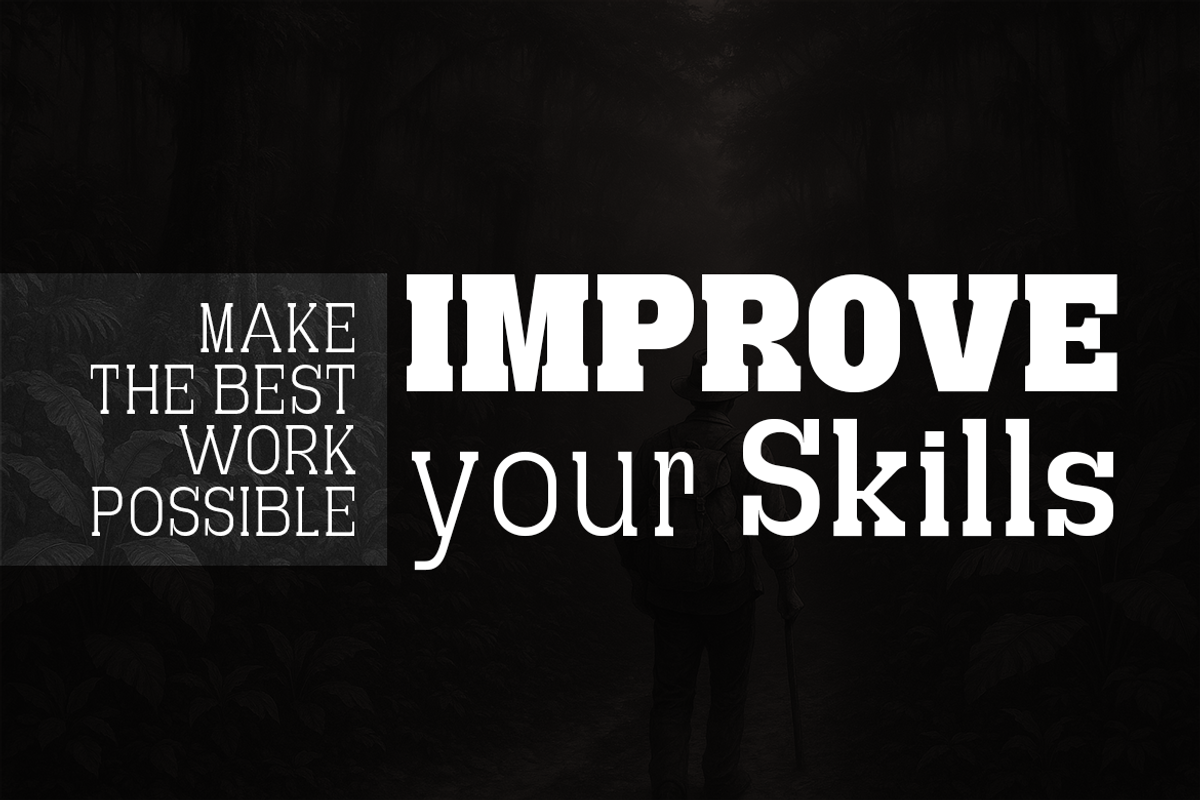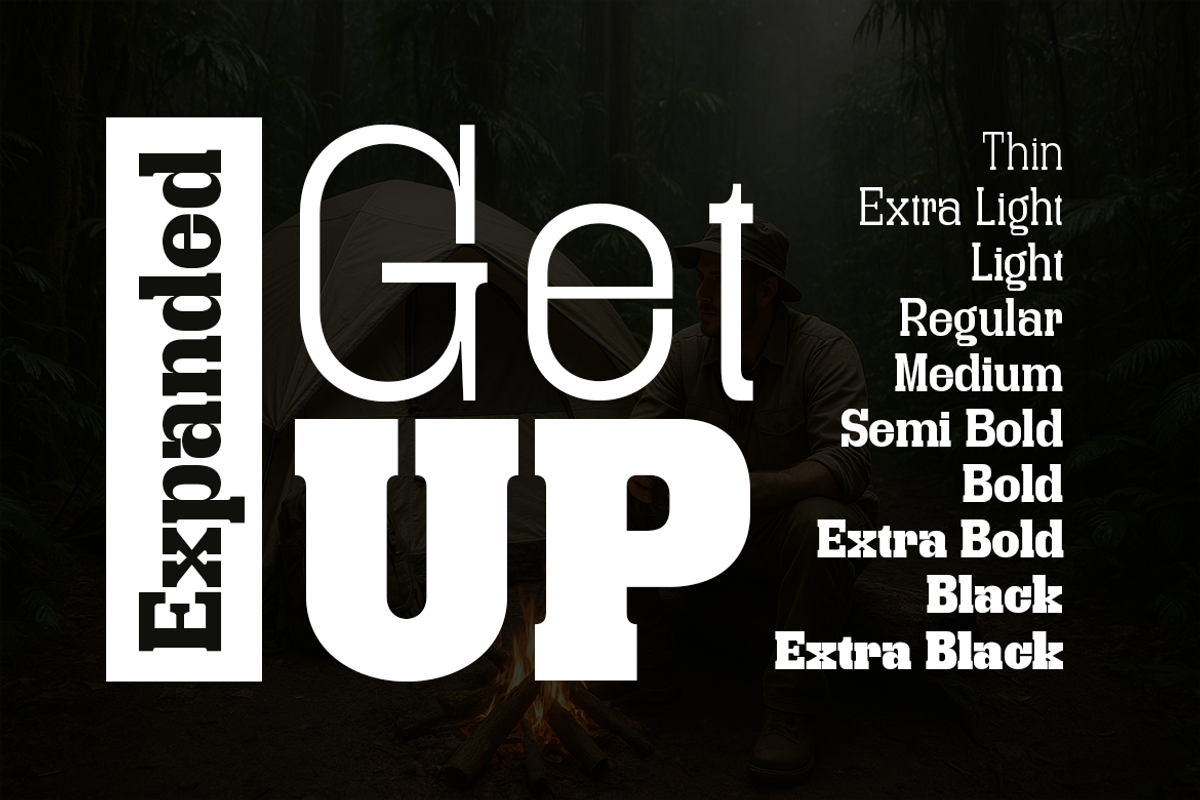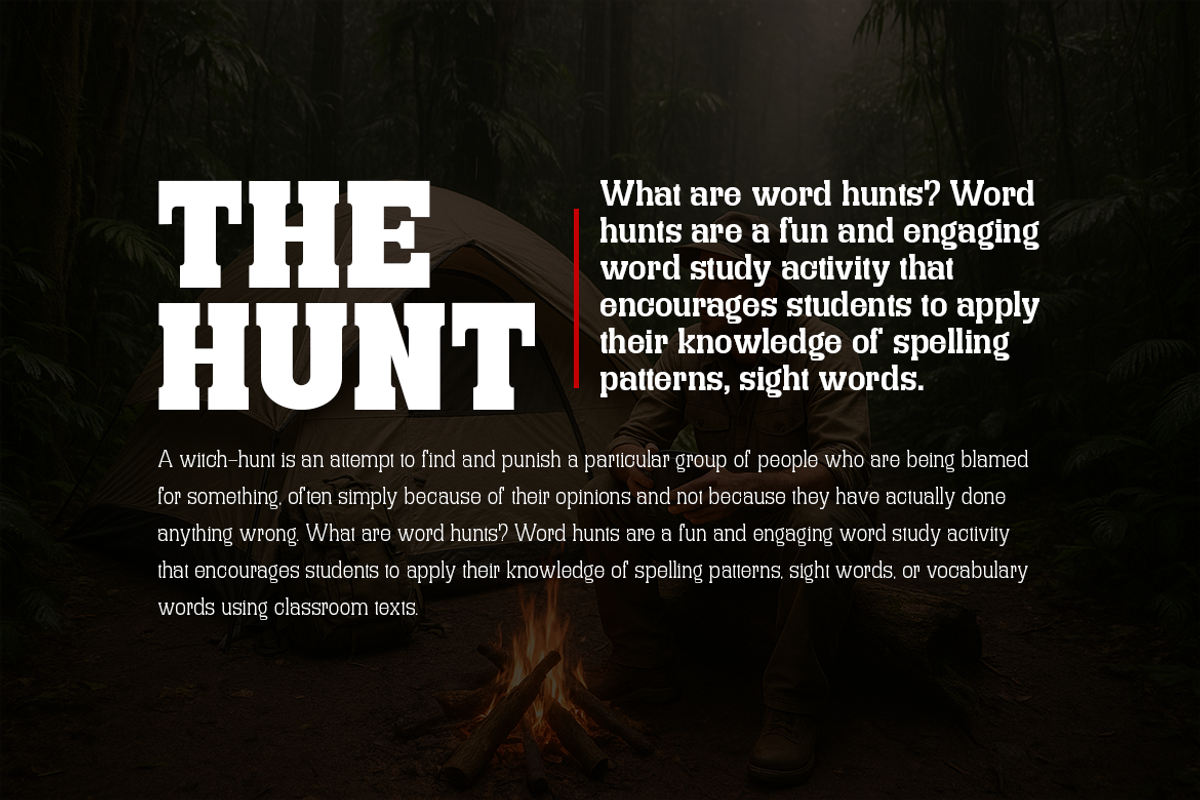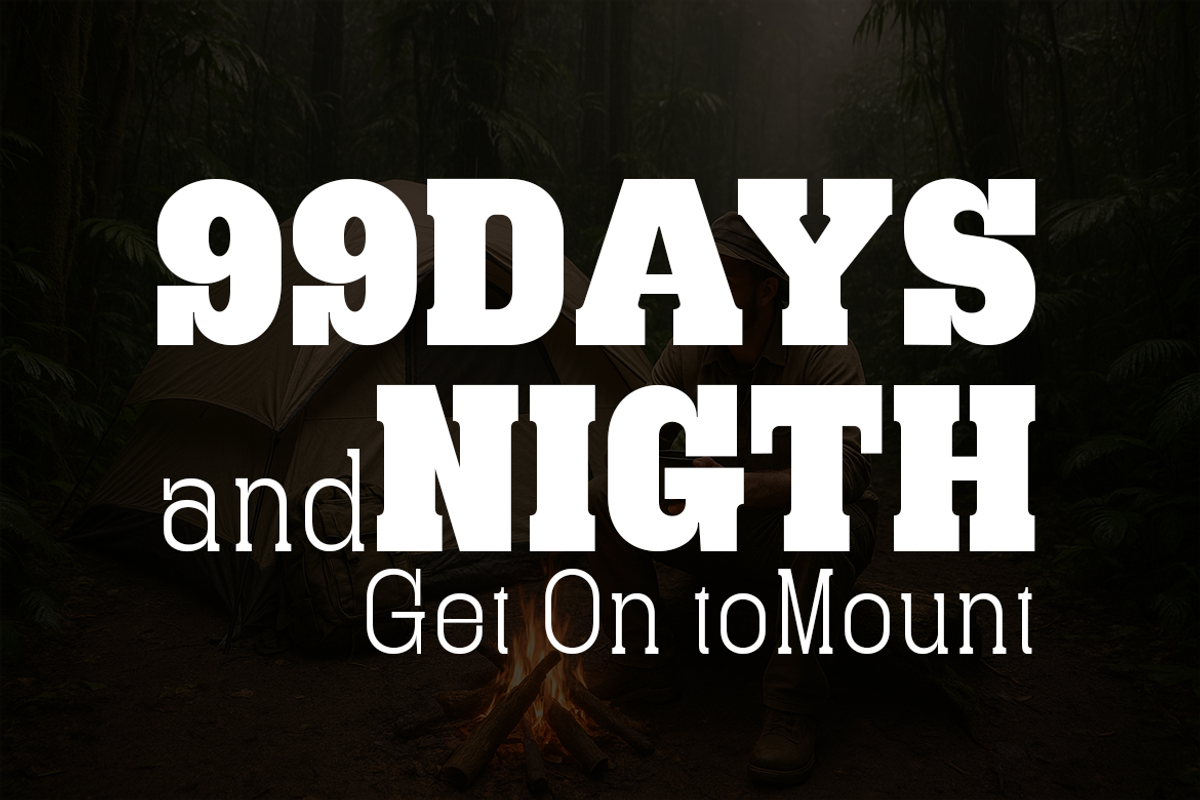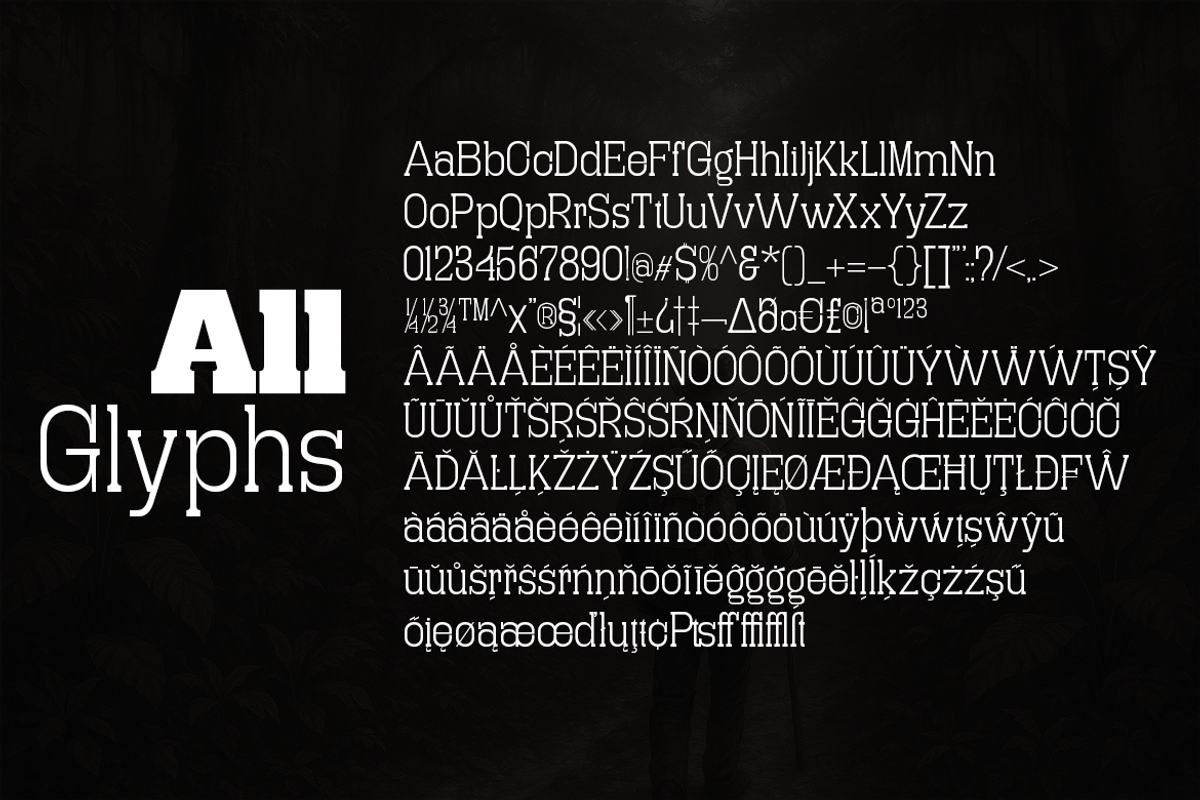
GetUp – Expanded
GetUp – Expanded (10 Weights: Thin–Extra Black)
Description: GetUp Expanded delivers bold authority through wide proportions and heavy slab serifs. Featuring 10 impactful weights, this category is made for standout headlines, statement covers, giant banners, and powerful logo marks. The broad stance enhances readability and visual presence, making it ideal for designs that require dramatic emphasis. Each weight maintains the family’s DNA while amplifying intensity and clarity.